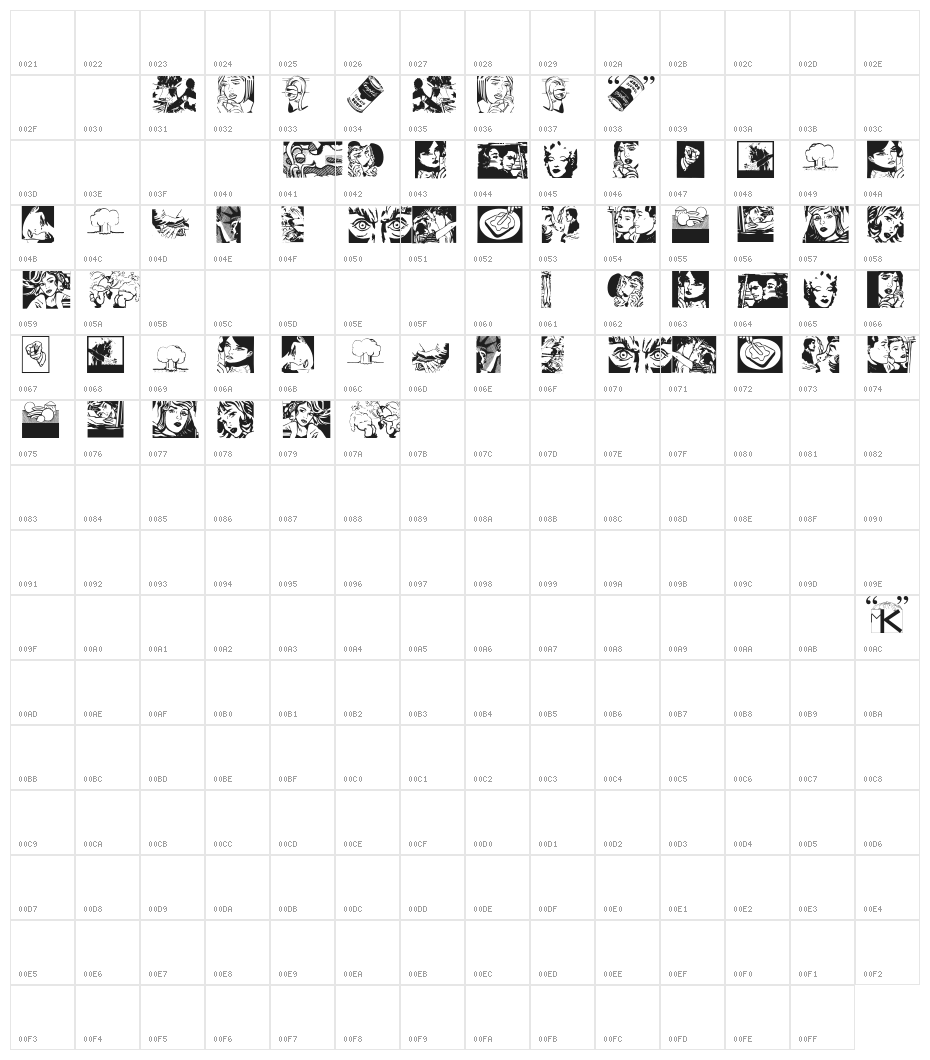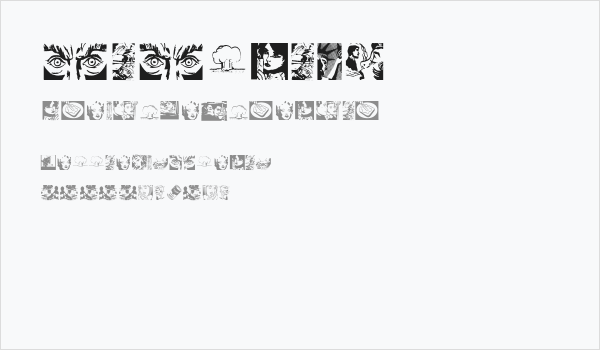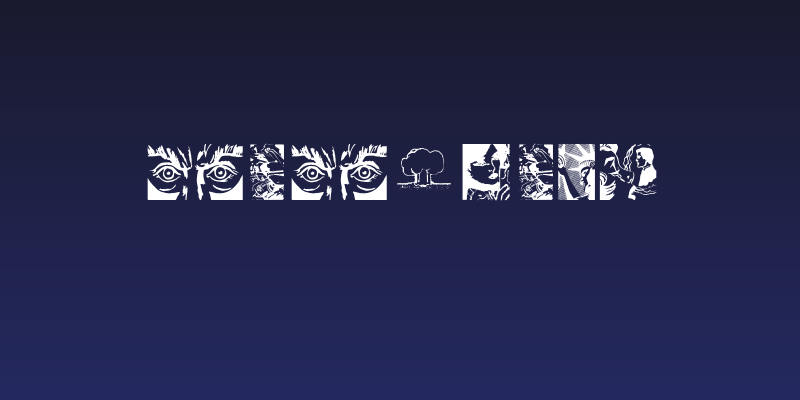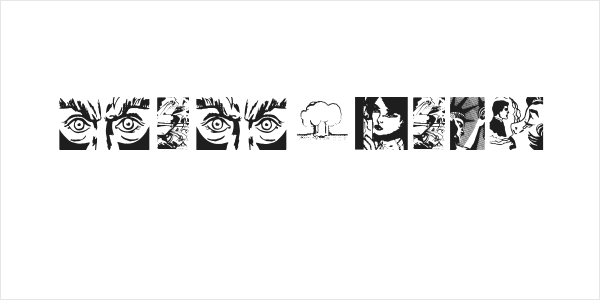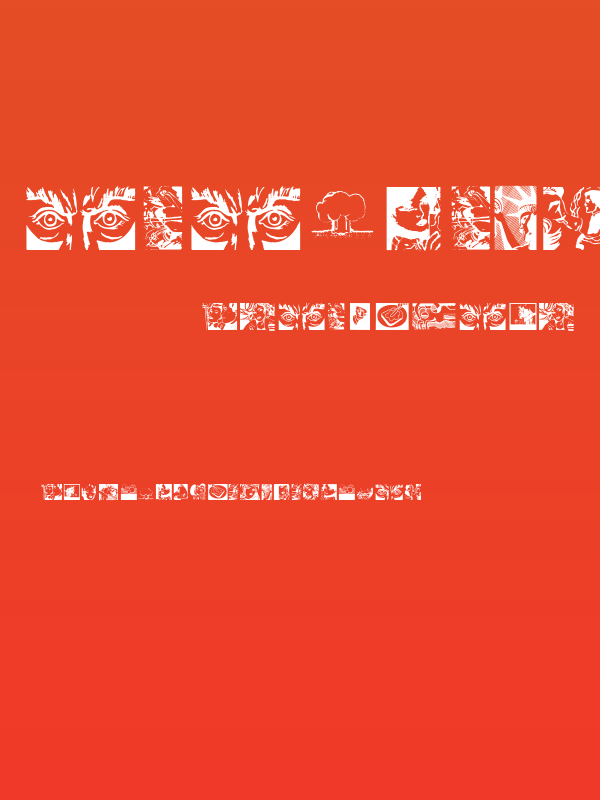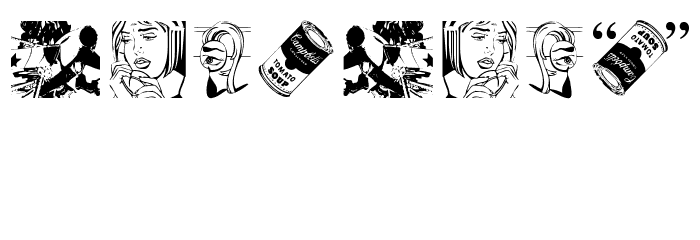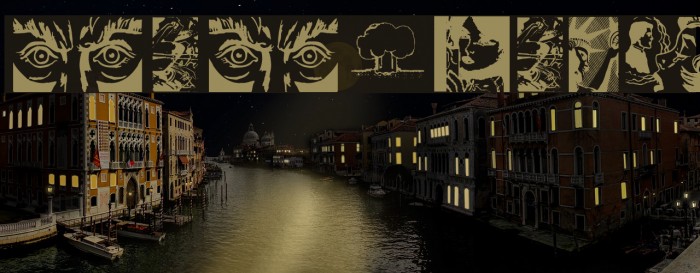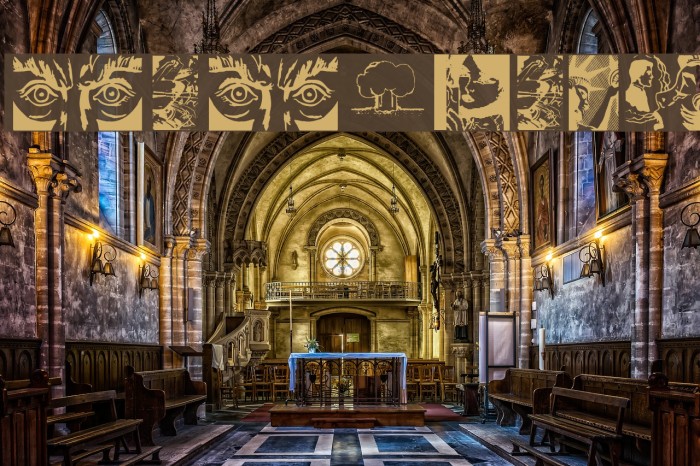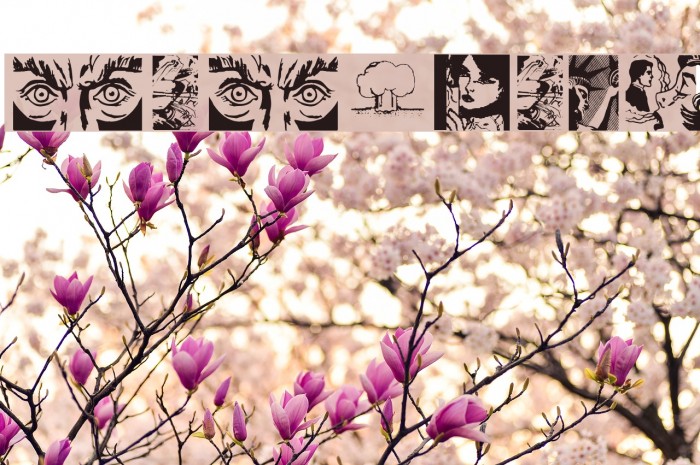
PopIcons Font
PopIcons Description
This is a decorative font that features a series of pop art-inspired icons and illustrations. Each character is represented by a unique graphic, reminiscent of comic book art from the mid-20th century. The illustrations include expressive faces, dynamic action scenes, and iconic imagery such as speech bubbles and stylized objects. The style is bold and graphic, with high contrast between black and white areas, capturing the essence of pop art with its vibrant and eye-catching designs. These icons are perfect for adding a retro and artistic flair to any project, making them ideal for creative and unconventional uses.
| Use Case | Logos, Posters, Artistic Projects |
| Proposed Projects | Ideal for creative projects such as posters, album covers, graphic novels, and retro-themed designs. |